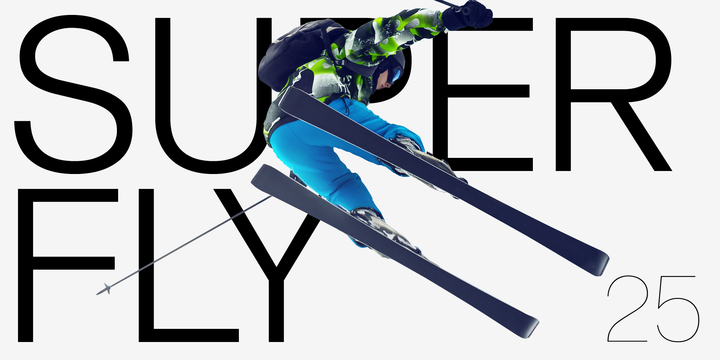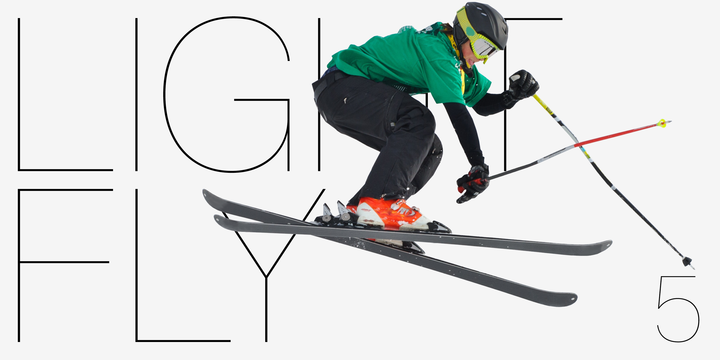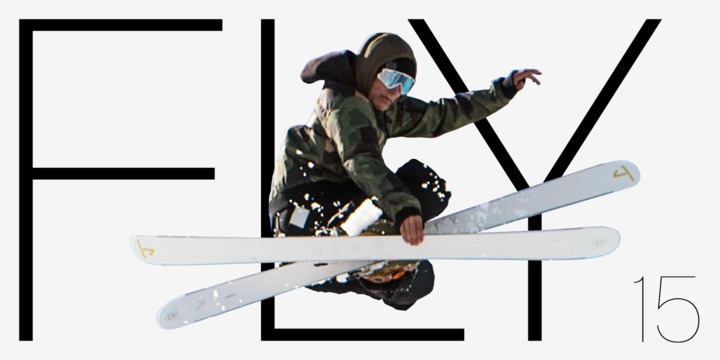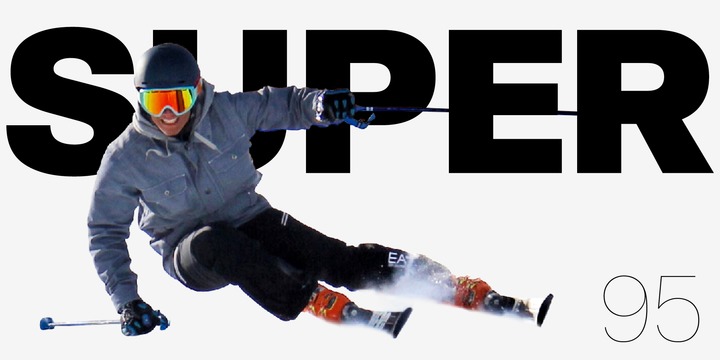
Shapiro Font Family
Introducing Shapiro Sans Font. On the basis of the classical form, Shapiro meets all the requirements that are placed on a good font, such as good readability, a sympathetic overall impression, as well as a balanced gray-effect. Shapiro boasts horizontal and vertical strokes that are nearly identical in width, giving the family a compact, modern look and feel.